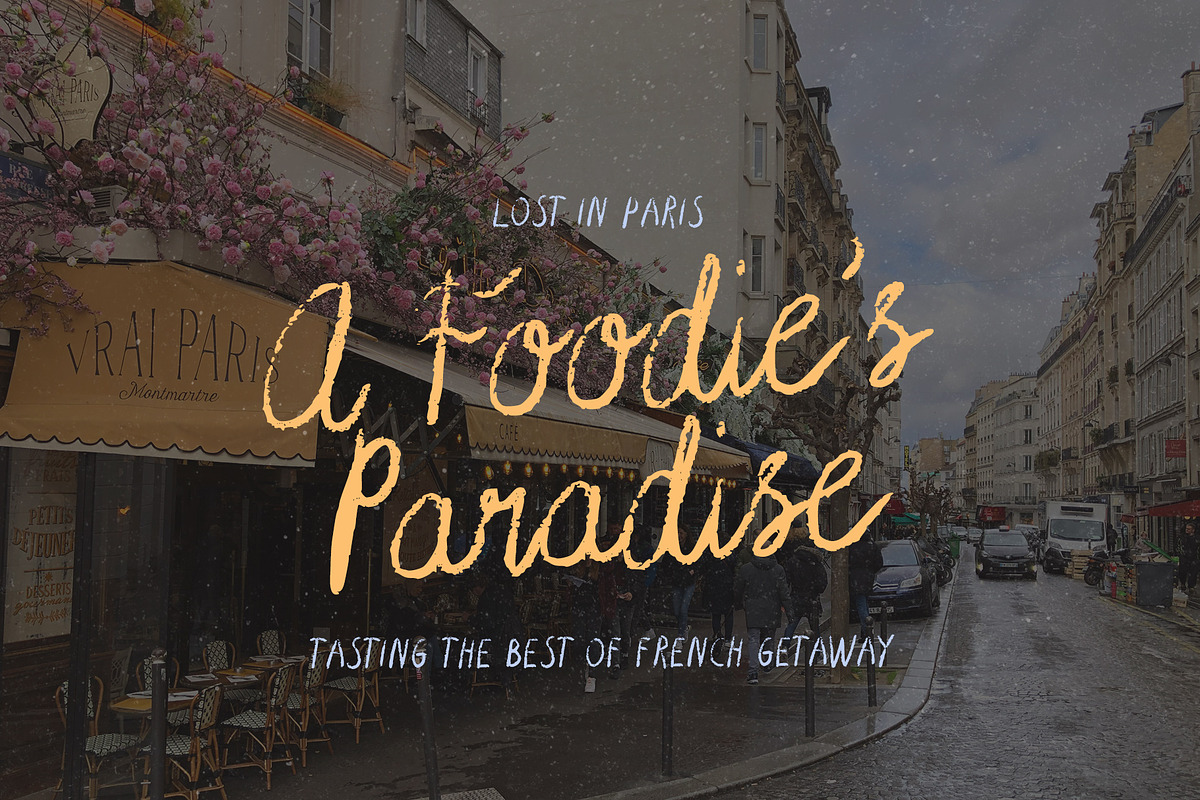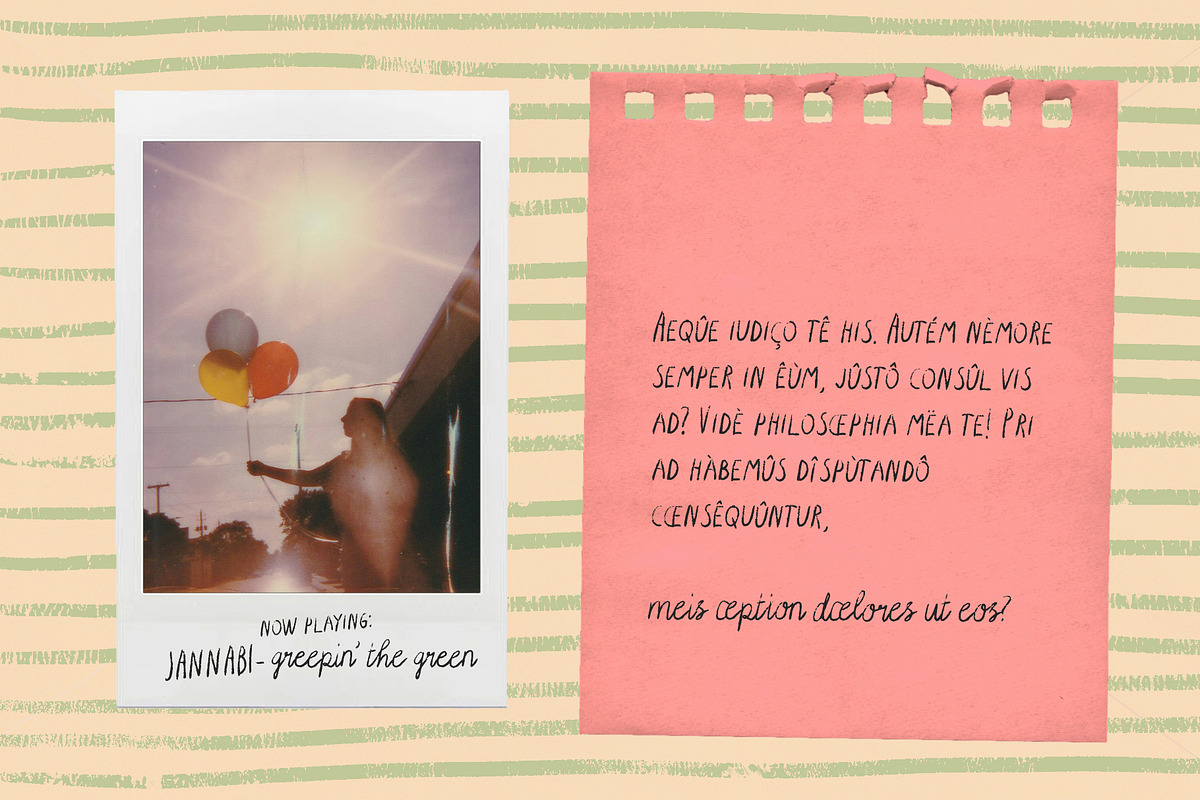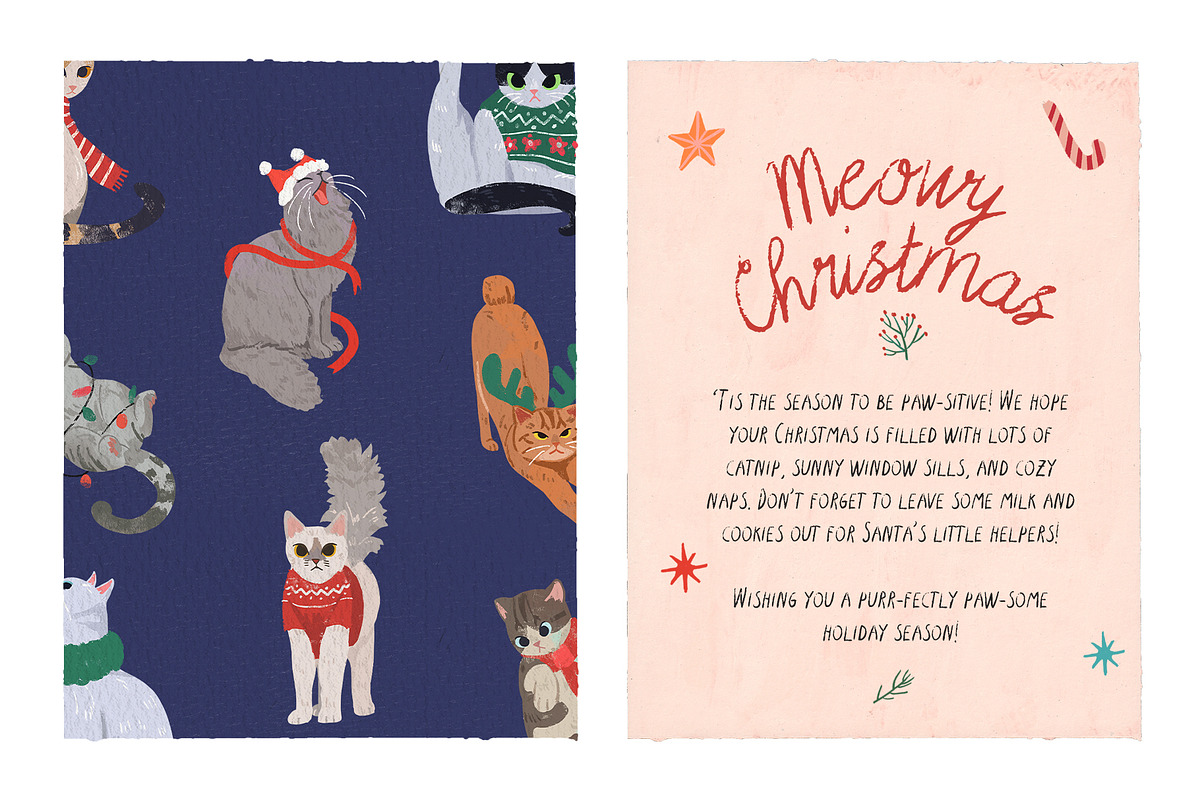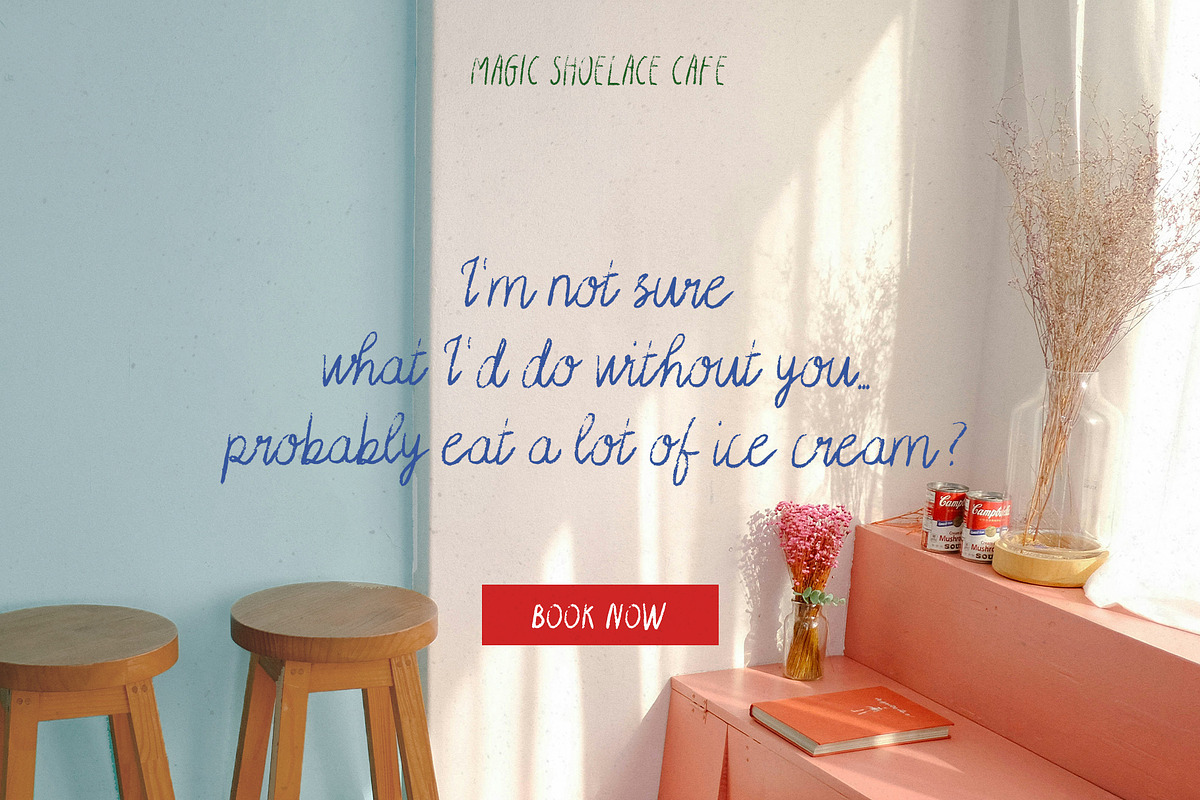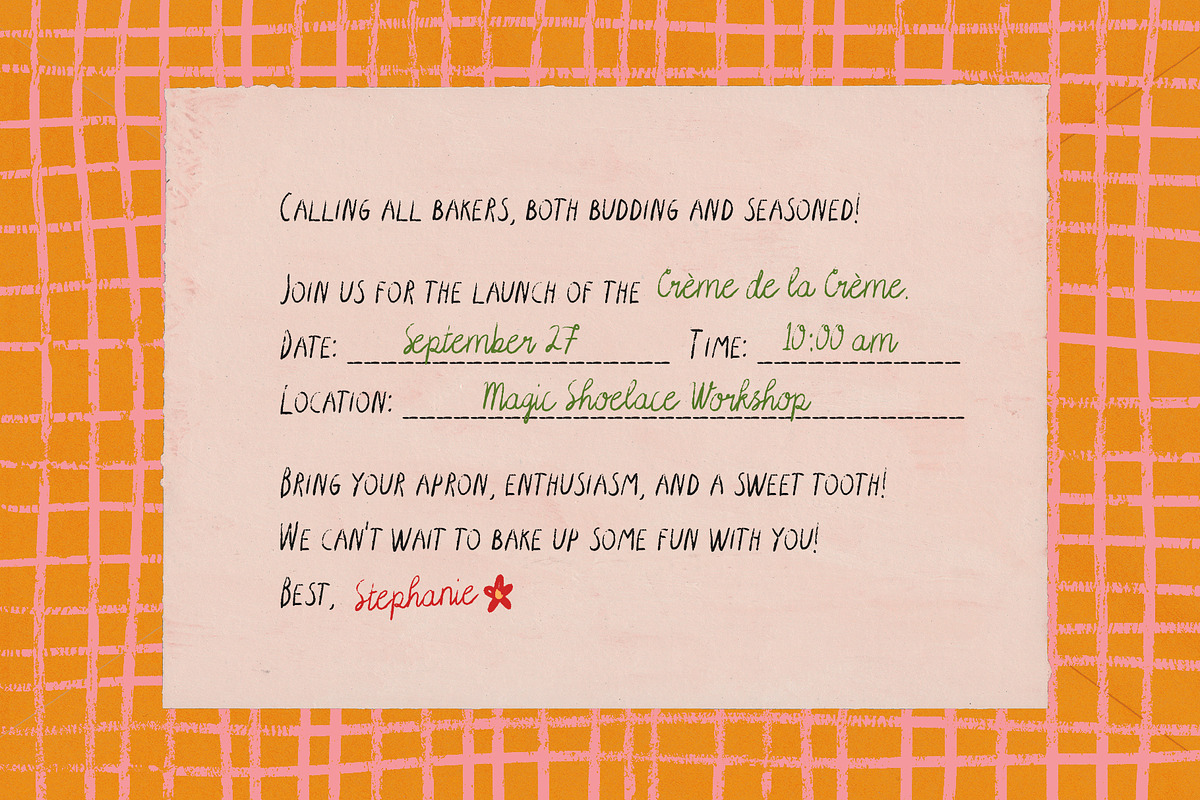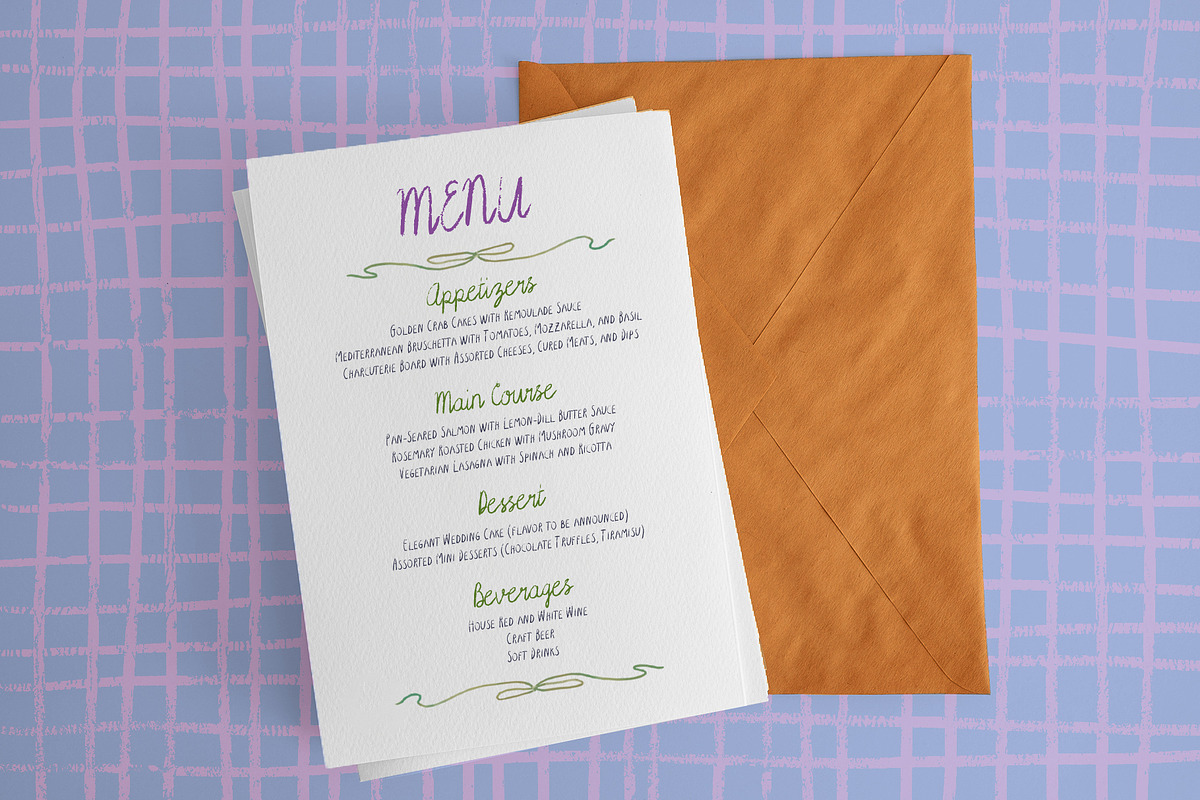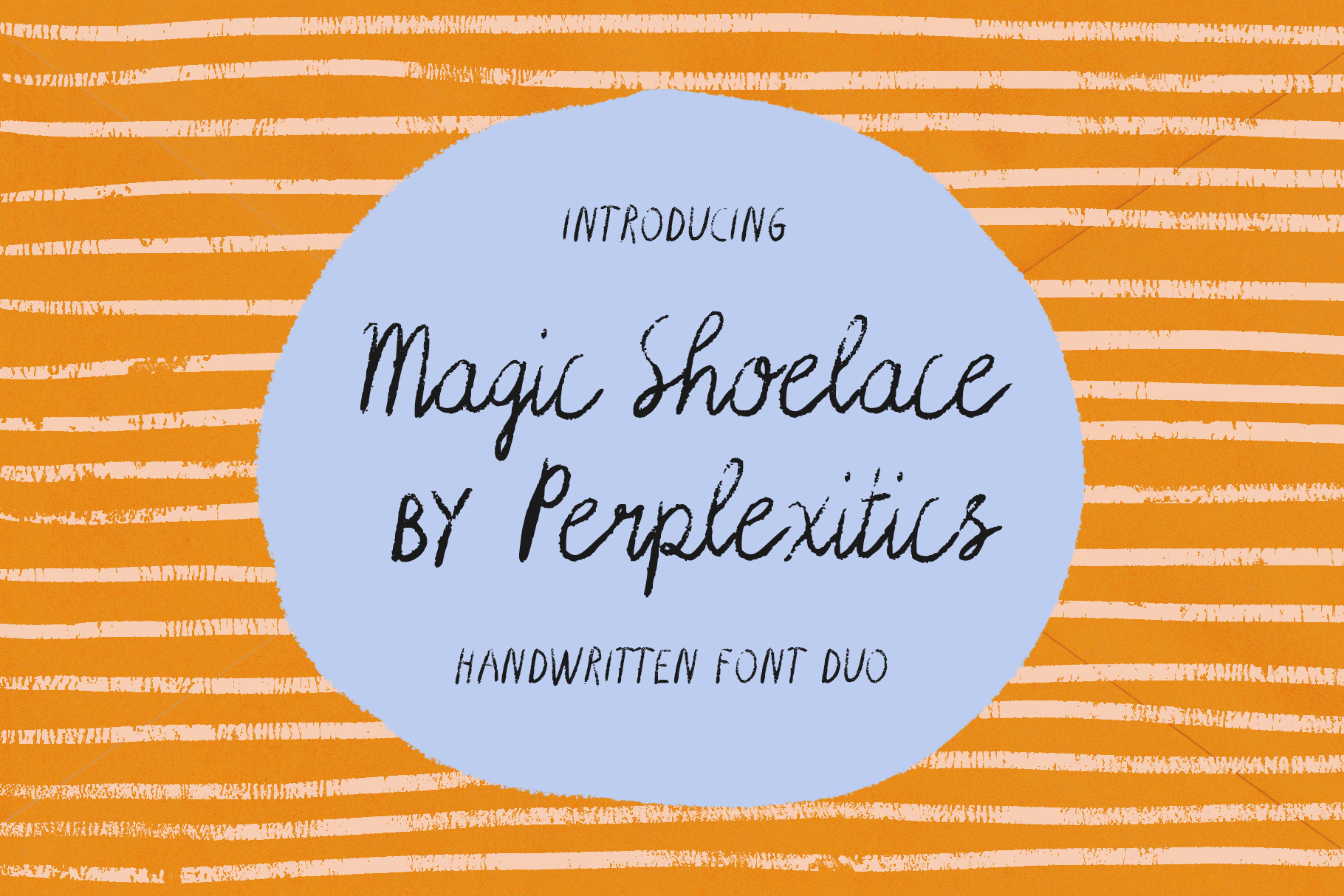
Magic Shoelace Handwritten Font Duo
Magic Shoelace is a delightful handwritten font duo that brings a touch of whimsy and charm to your designs. This duo features a playful script font and a casual sans-serif font, both imbued with a charming pencil texture.
Magic Shoelace Font is packed with everything you need, including uppercase and lowercase letters, numbers, and punctuation. Script and uppercase sans font. Multilingual support.